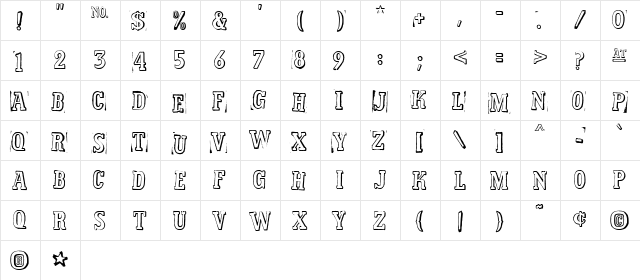
Superior Medium
Design Context for Superior Typeface
Superior is a composed and adaptable typeface that performs quietly and consistently across a wide range of design contexts.